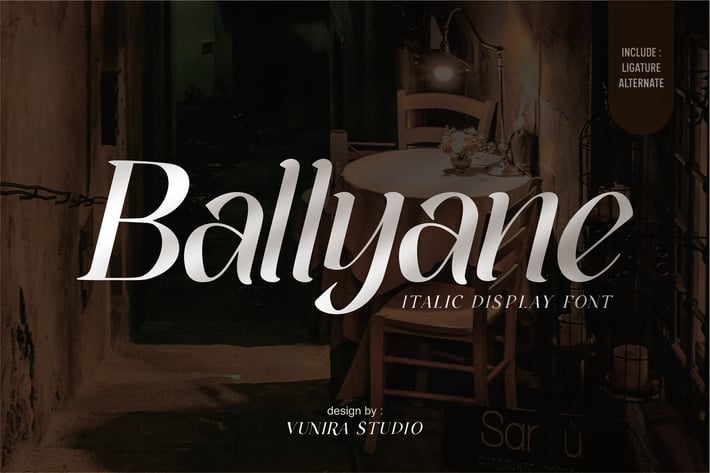
Ballyane - Italic Display Font
Ballyane - Italic Display Font with a calligraphy style, So beautiful on invitation like greeting cards, branding materials, business cards, quotes, posters, and more!